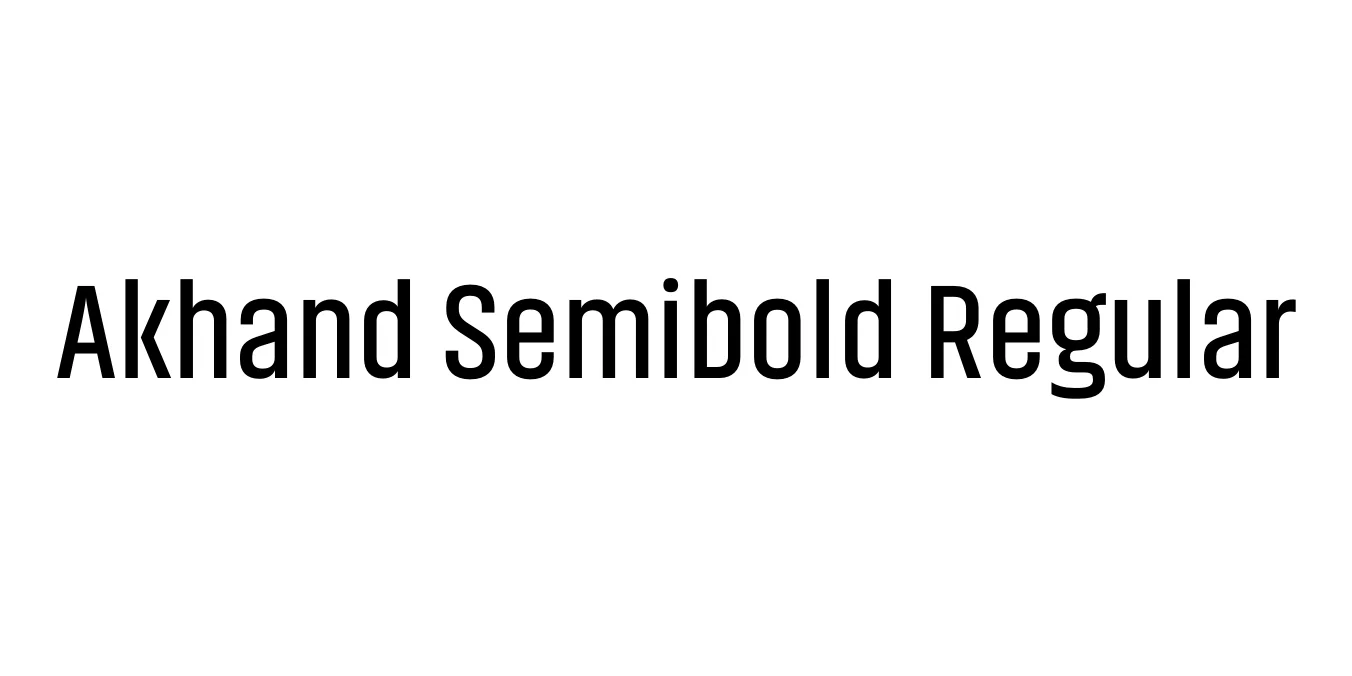
Akhand Semibold Regular
Designed by Satya Rajpurohit
| Category | Display Sans-Serif |
| Designer | Satya Rajpurohit |
Akhand Semibold Regular is a prominent member of the Akhand family, a modular sans-serif typeface designed by Satya Rajpurohit for the Indian Type Foundry (ITF). The design is characterized by its compact, straight-sided letterforms and nearly uniform stroke weights, which give it a clean, technical, and highly modern appearance. Its geometric construction is softened by subtle rounding at the corners, ensuring that while it looks structured, it remains approachable and legible across various media formats.
The Semibold weight is specifically engineered for high-impact display purposes, providing a strong visual hierarchy without the excessive weight of a bold or black style. It has become a popular choice for corporate identities, broadcast design, and architectural signage due to its space-efficient nature and neutral tone. Its versatility allows it to function effectively in both digital user interfaces and traditional print environments, making it a staple for contemporary designers.
Akhand Semibold Regular Best Uses
Ideal for creating strong and professional corporate identities.
Perfect for high-impact titles in magazines and posters.
Highly legible for UI elements and digital banners.
Excellent for architectural and wayfinding systems.